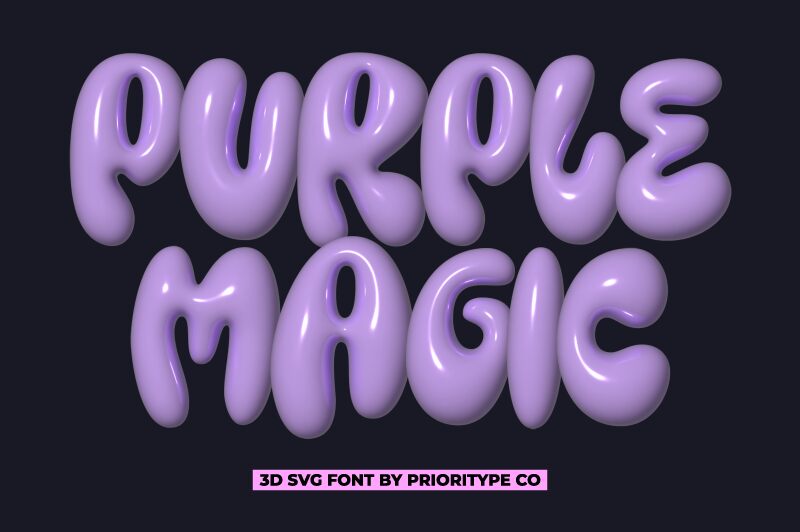
Purple Magic font embraces an enchanting groovy style, artfully crafted by Prioritype Co. This bold display typeface captivates with its playful curves and dynamic forms, evoking a sense of whimsy and nostalgia. Its expressive flair resonates well in vibrant designs, ensuring it commands attention in any context.
The font's striking presence makes it ideal for eye-catching posters, lively branding, and fun event invitations. Whether used in modern graphics or retro themes, Purple Magic effortlessly uplifts the visual experience, inviting creativity and joy into every project. Its unique character transforms ordinary text into captivating statements that inspire connection and engagement.